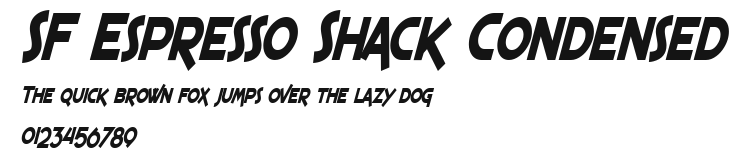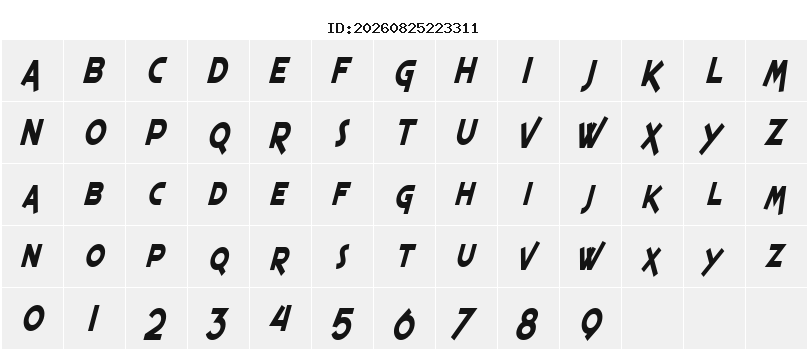
• Font Name: SF Espresso Shack Condensed
• Font ID: SF Espresso Shack Condensed Bold Italic
• Full Font Name: SF Espresso Shack Condensed Bold Italic
• PostScript Name: SFEspressoShackCondensedBoldItalic
• Character Count: 196
About SF Espresso Shack Condensed.ttf
SF Espresso Shack Condensed.ttf is a modern, elegant sans-serif font designed for ultimate readability and visual harmony. Perfect for branding, headlines, web design, and print materials.